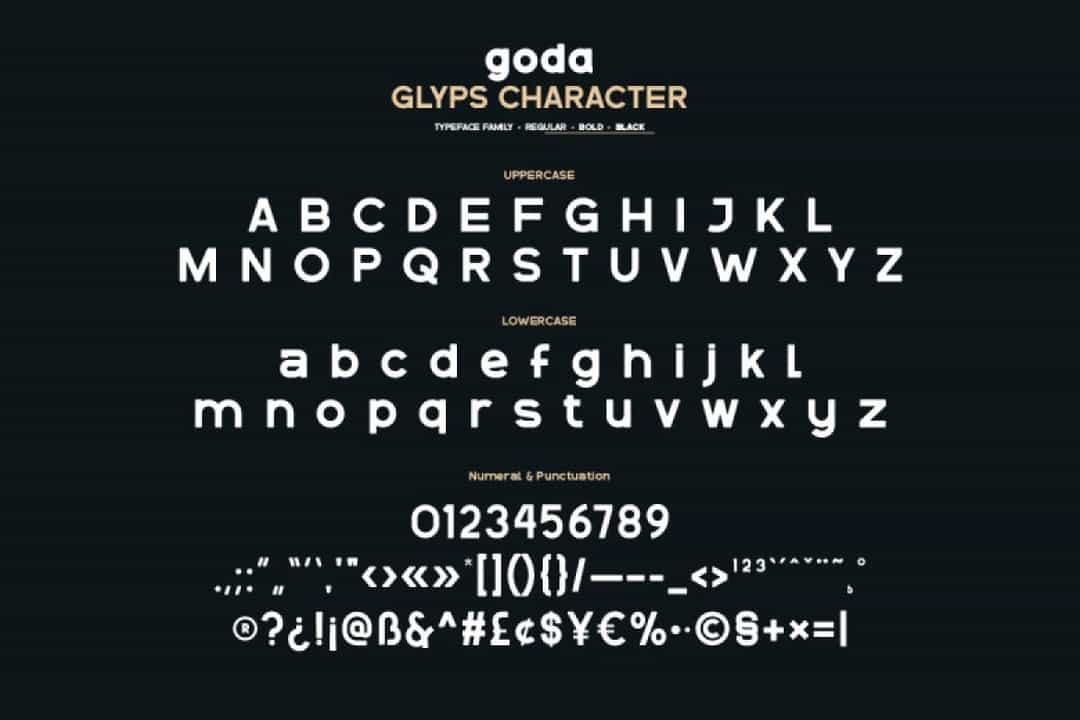
Goda Sans Serif Font is an elegant and appealing font with feminine appeal that can also be used for projects with masculine themes. Perfect for designs such as sporting event banners and logotypes, branding, movie posters, food packaging technology apparel quotes logotypes logotypes quotes logotypes etc, this font makes a striking first impression when applied in design projects with feminine and masculine themes alike.